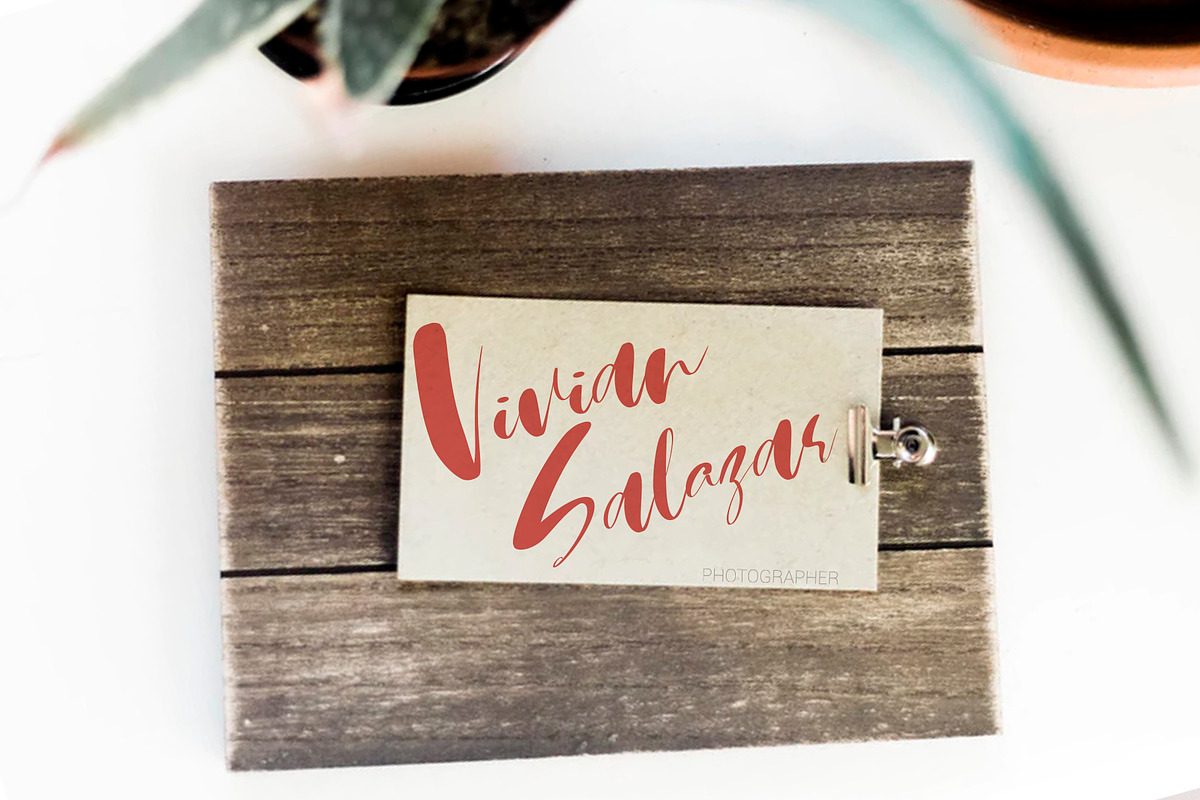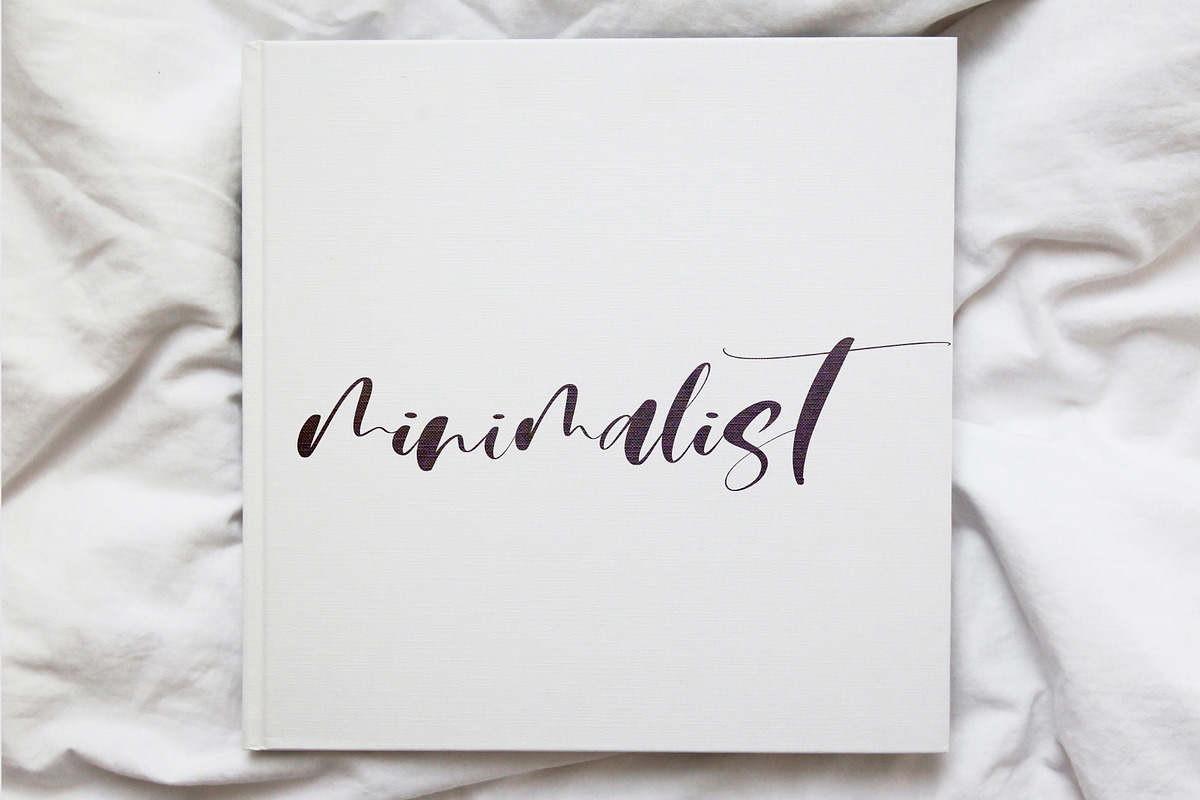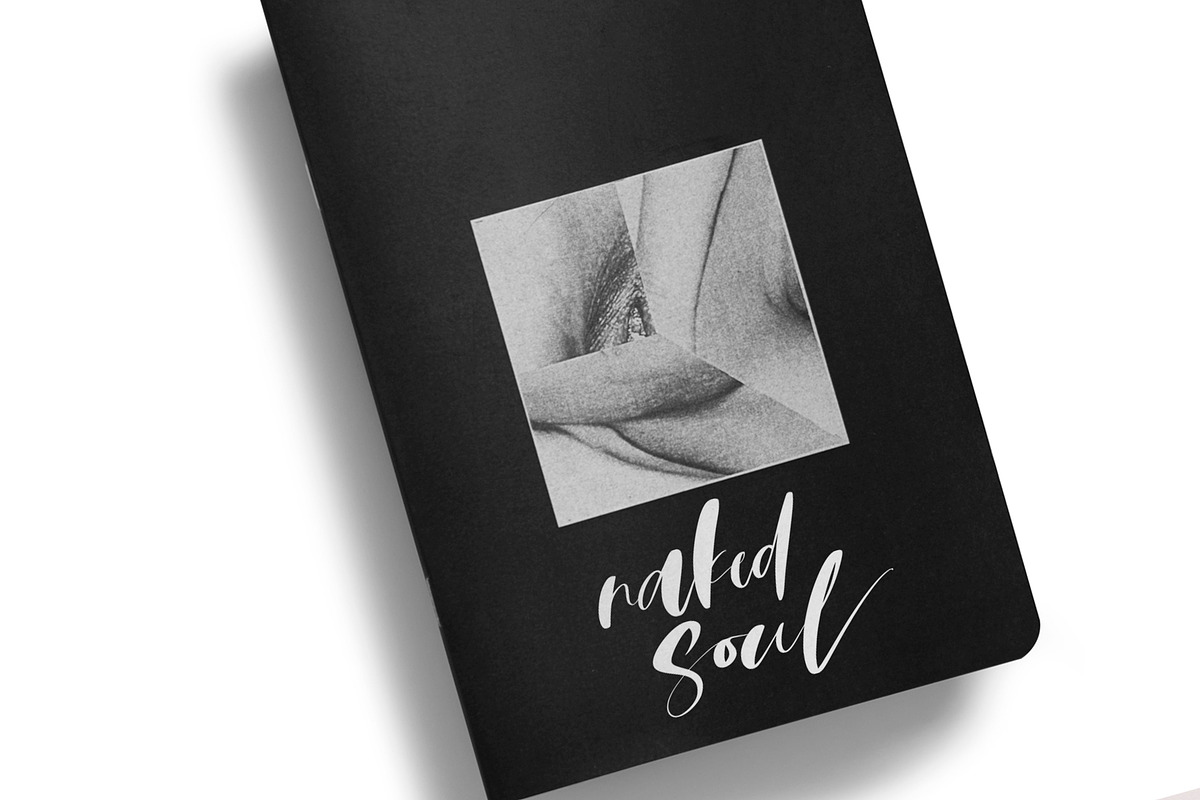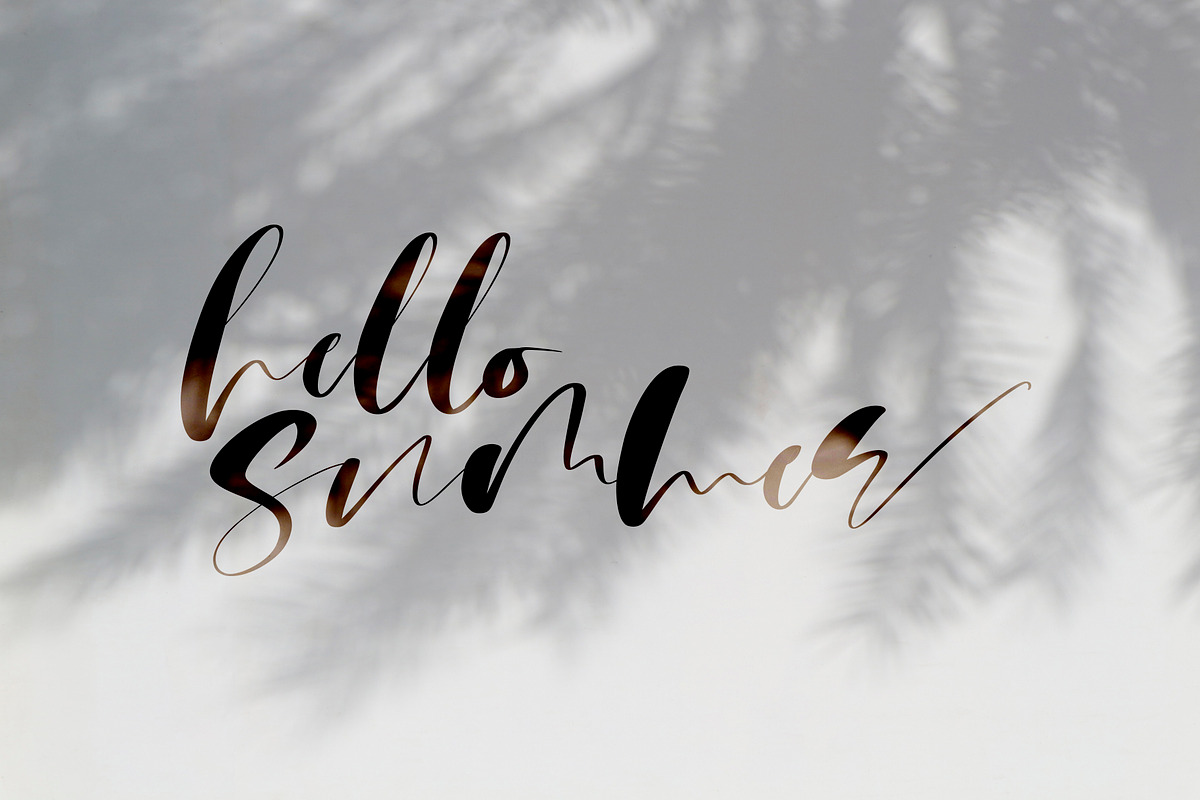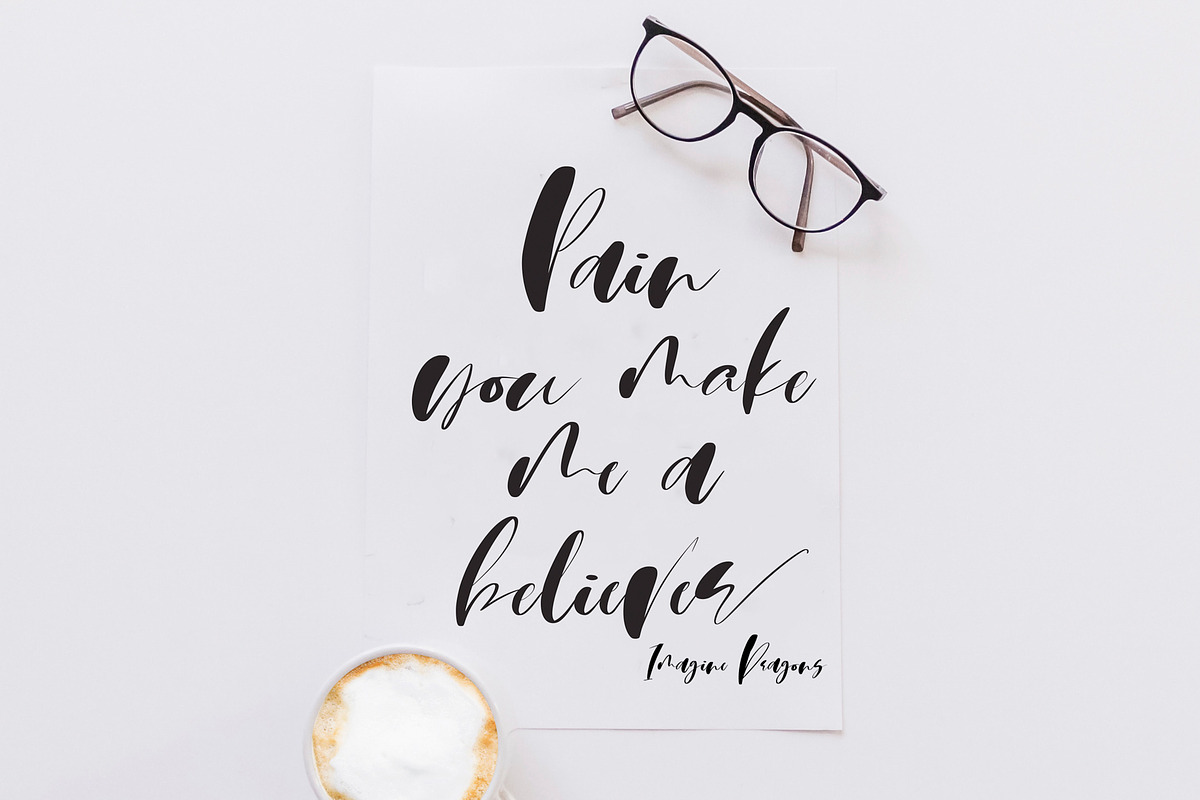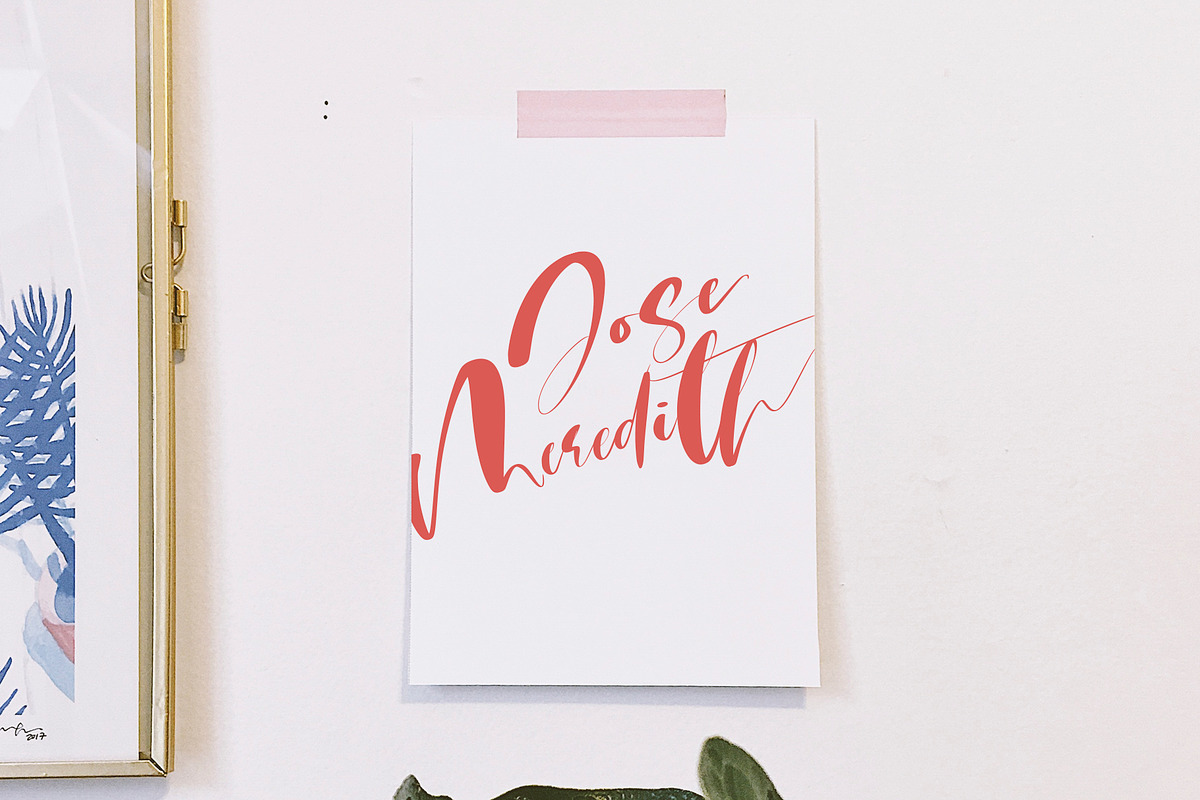
Martin Script Font
Martin Script Font - it's a modern casual font
Why Martin Script Font is worth a look
Martin Script Font by CallMeStasia fits naturally into Branding, posters, packaging, typography.